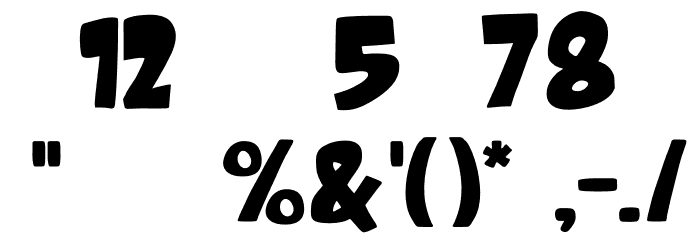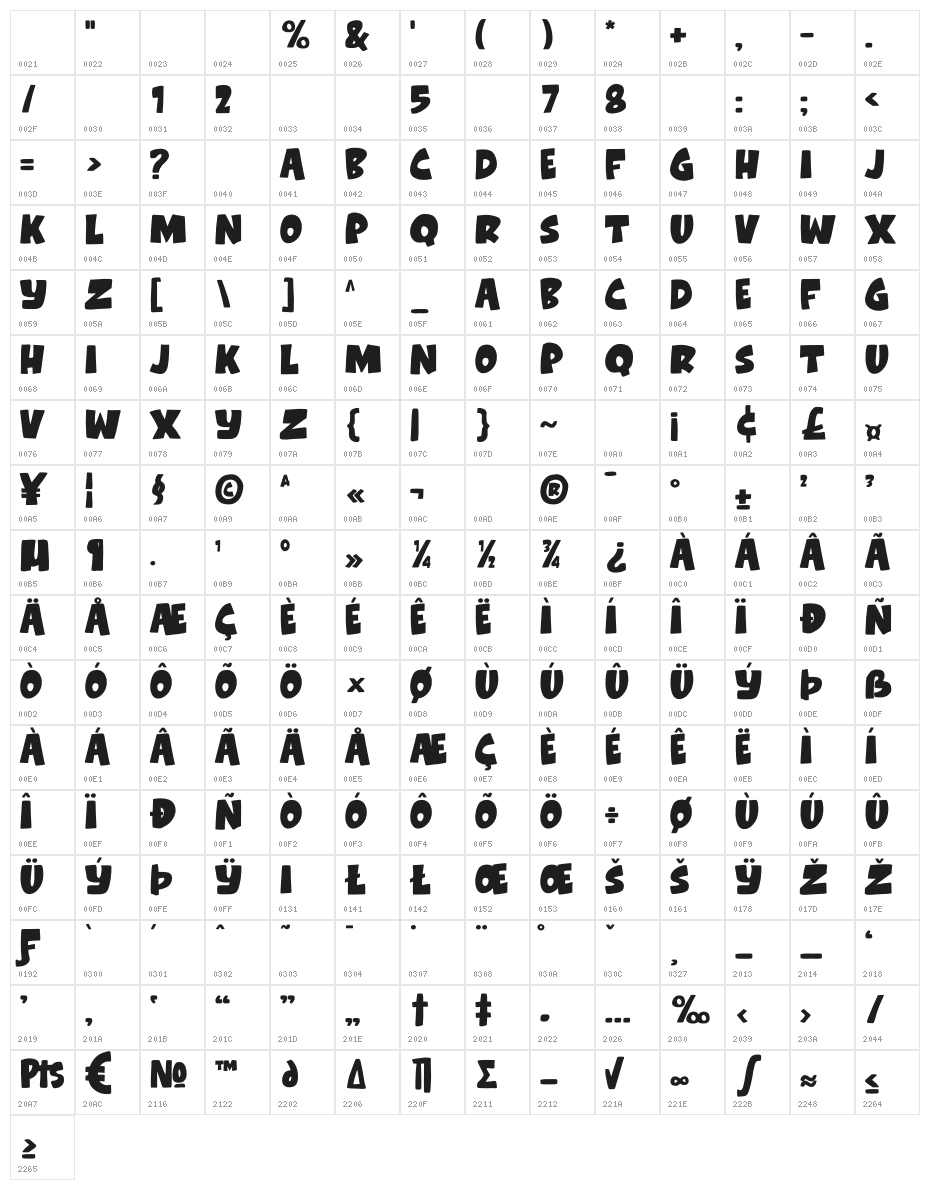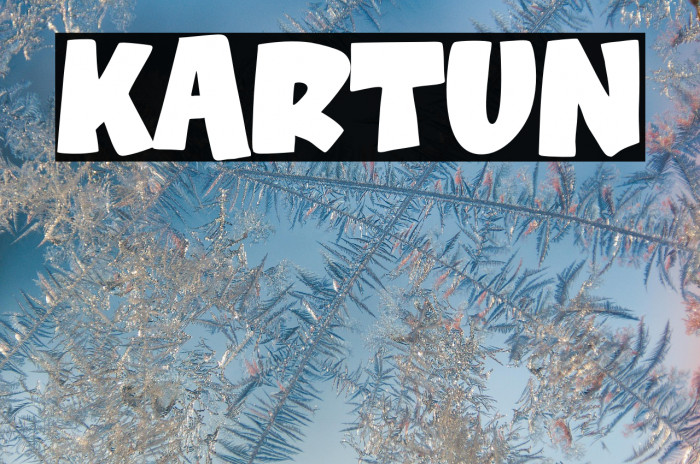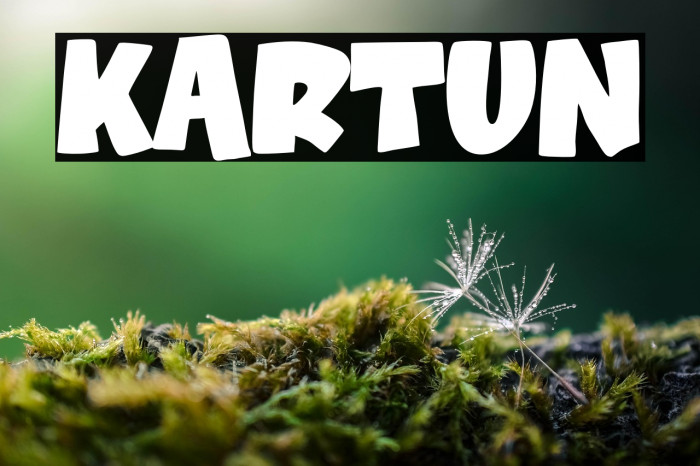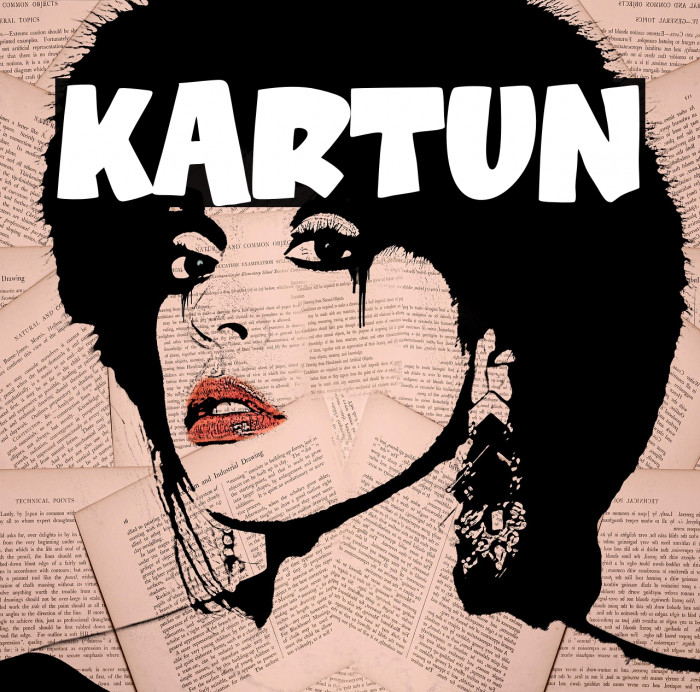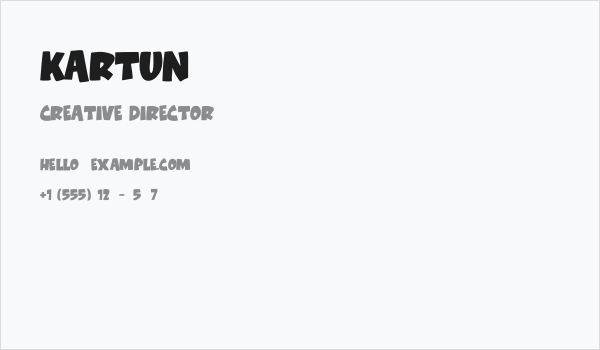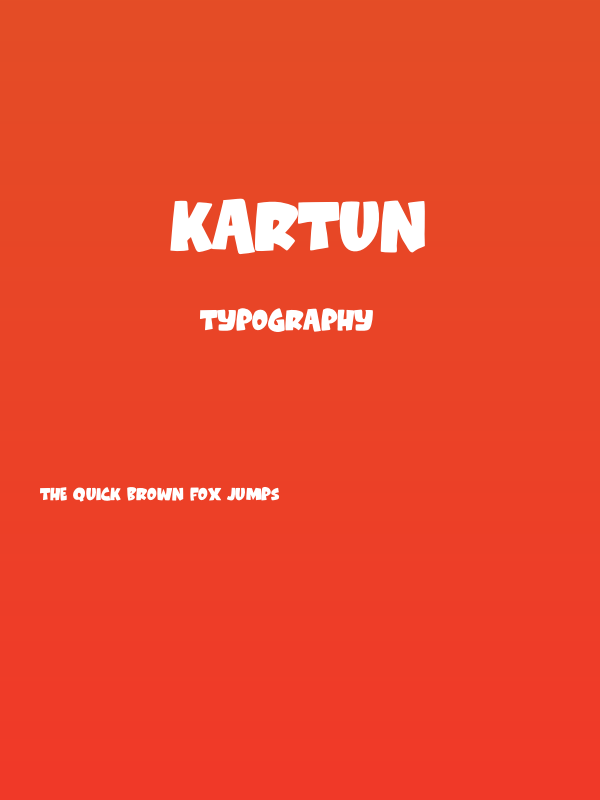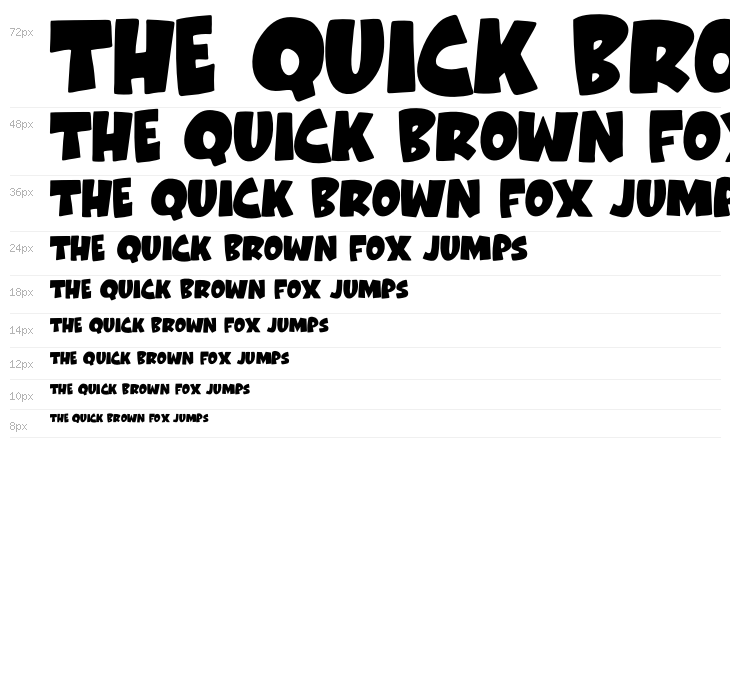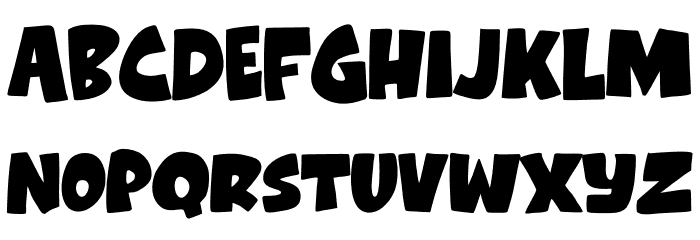
Kartun Font
Kartun Description
This playful and bold font features thick, rounded characters that convey a sense of fun and creativity. The letters are slightly irregular, adding a whimsical touch that makes it perfect for informal and lighthearted designs. The uppercase and lowercase letters maintain a consistent style, with a strong presence that stands out in any composition. The numbers and special characters are equally bold, ensuring uniformity across all text elements. This font is ideal for projects that require a lively and engaging aesthetic.
| Proposed Projects | Ideal for children's books, comic strips, playful branding, and event posters. |